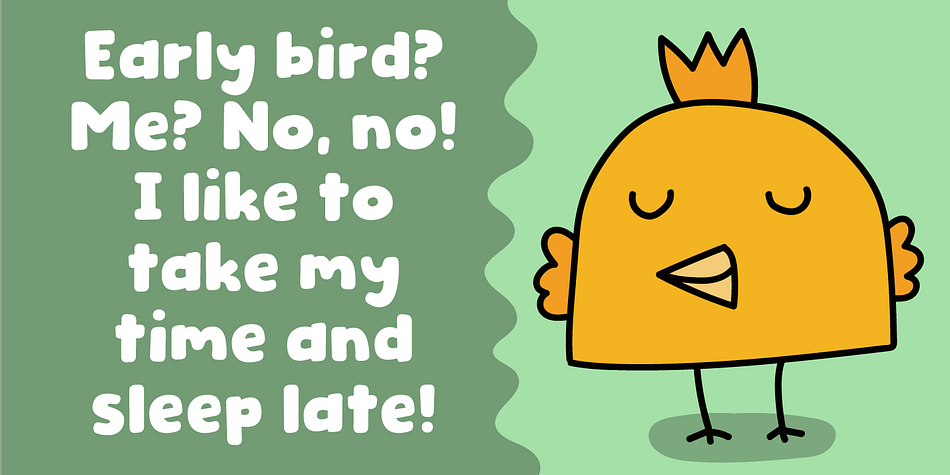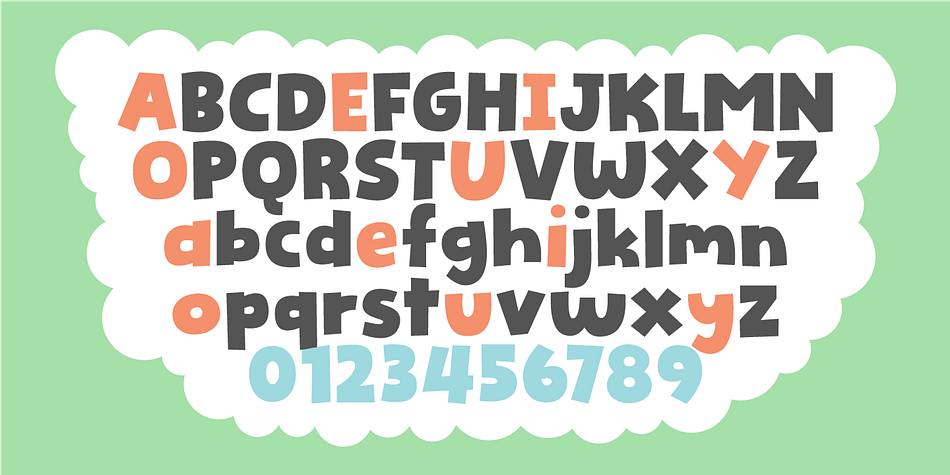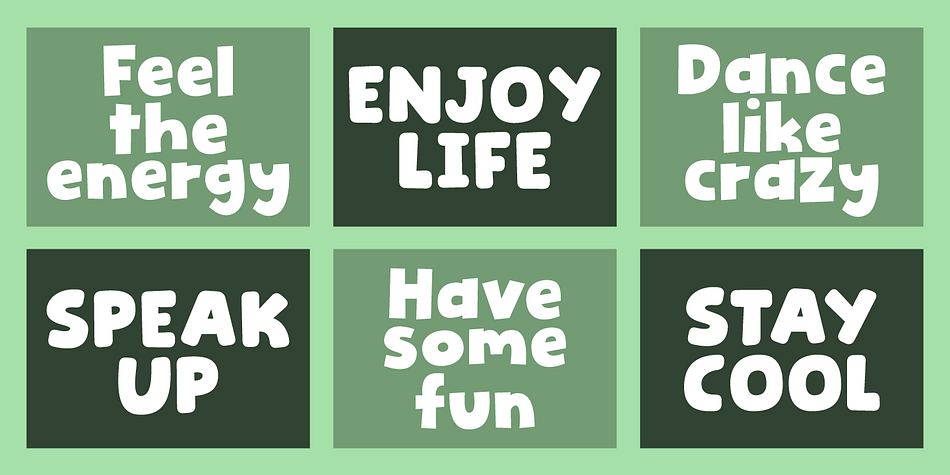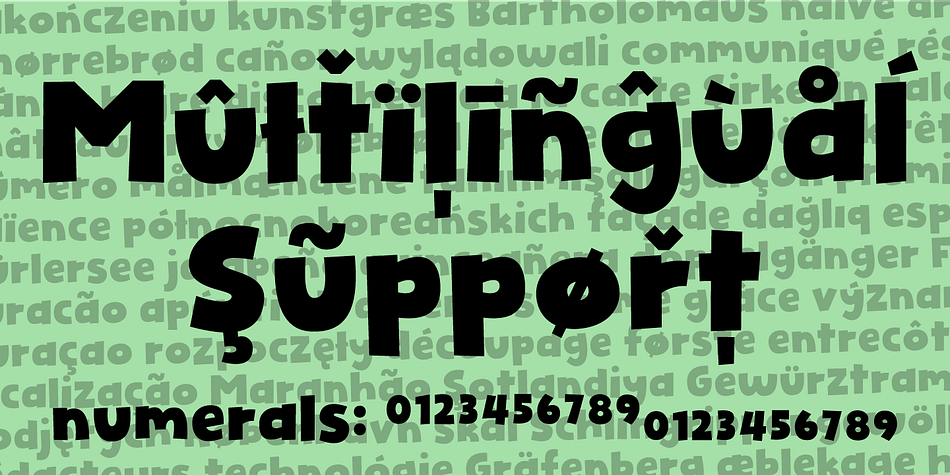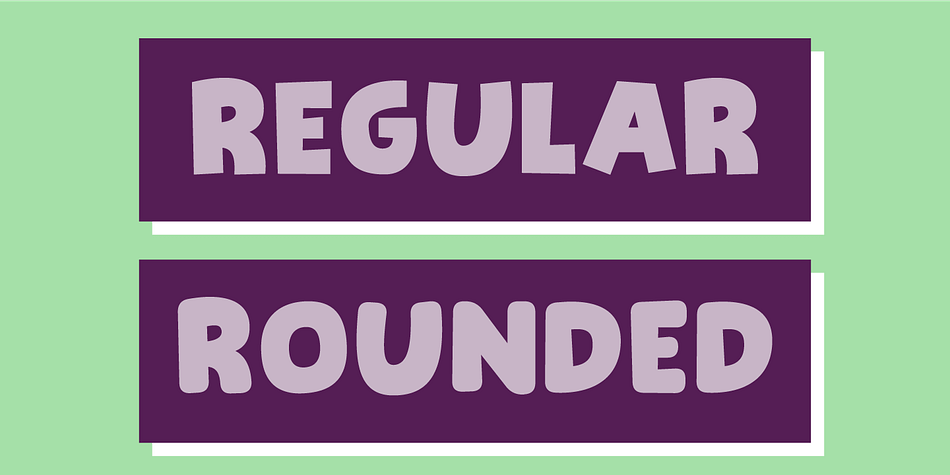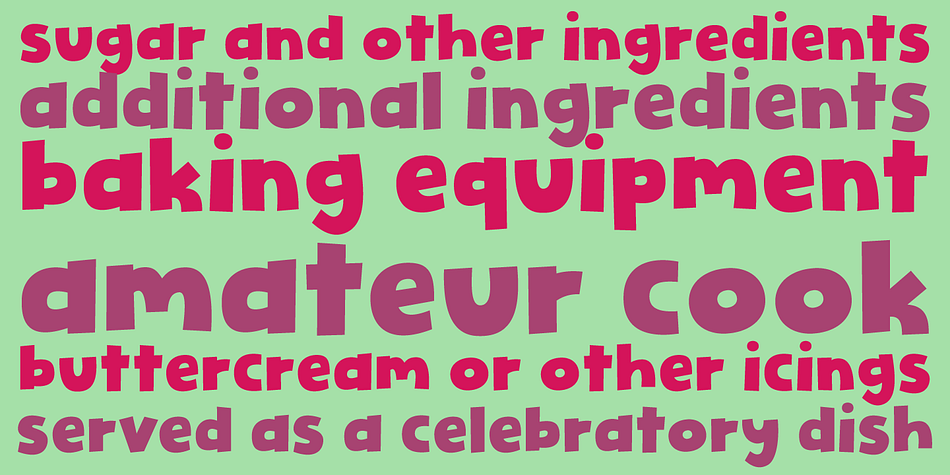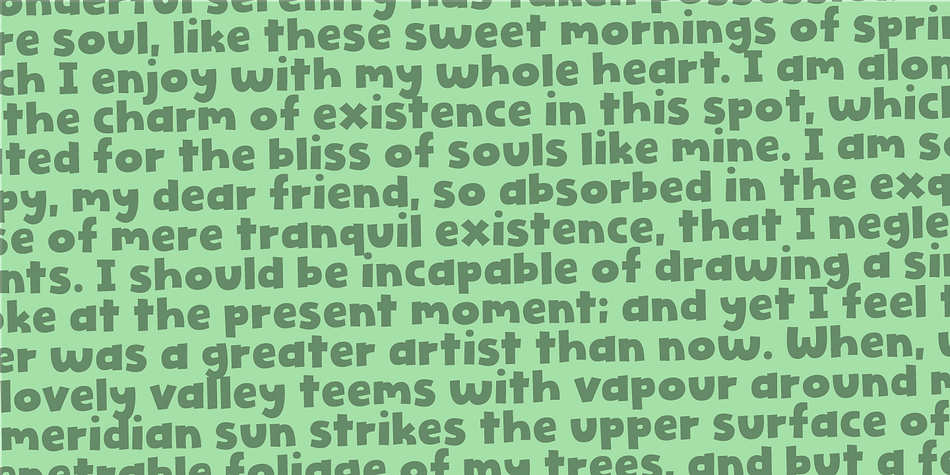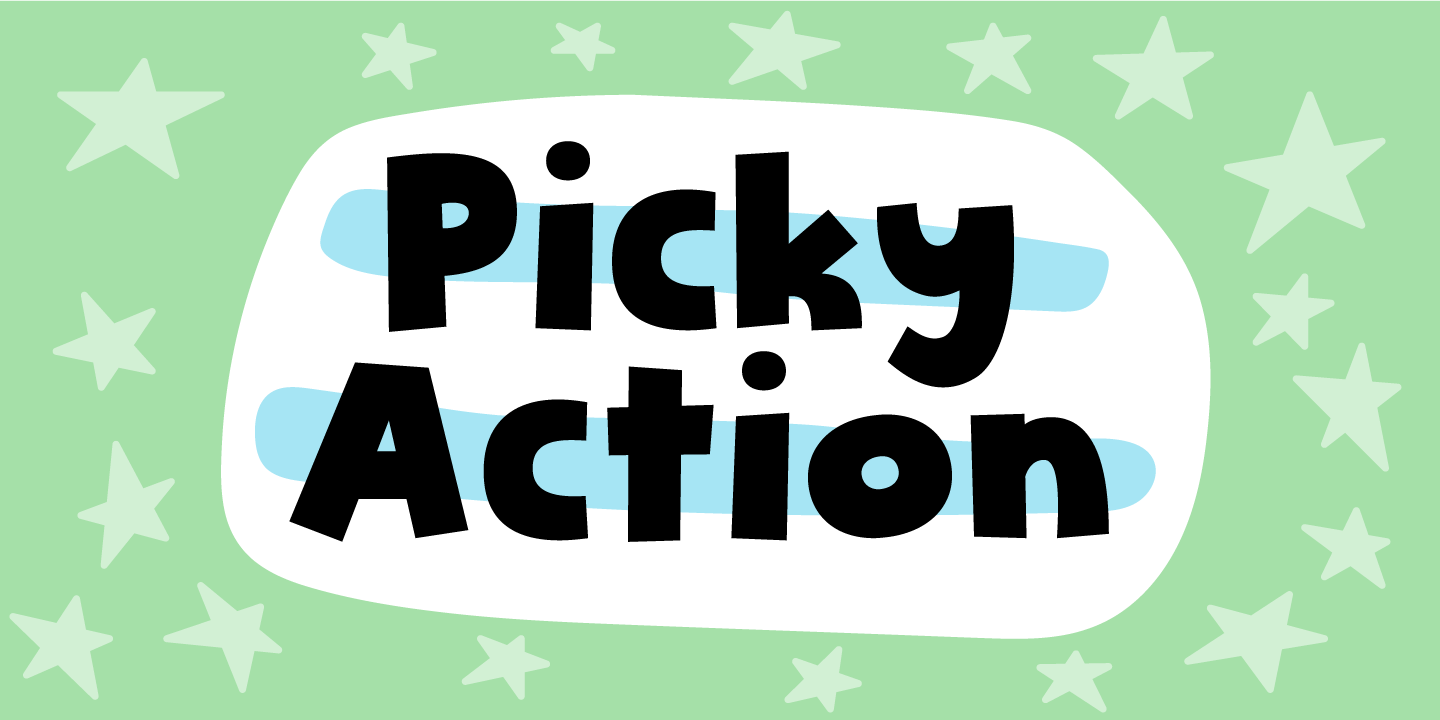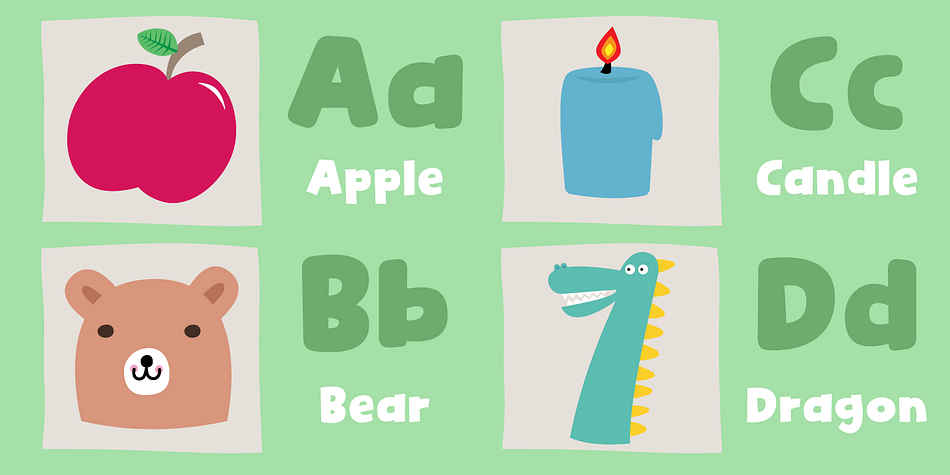
Picky Action
Designed by Jakob Fischer, Picky Action is a display sans, hand display and kids font family. This typeface has four styles and was published by Pizzadude.dk.
Sometimes you may be picky about your choices: What’s for dinner? Where are we going for vacation? Vanilla or chocolate? Which font suits this product the best?
The answers are many, but on that last question, the answer could be Picky Action - because of the super clean and smooth letters, that goes well with anything that needs a fresh, legible and loose look (without being to loose!)
I have added a Regular, Italic and rounded versions of these two. Enjoy!